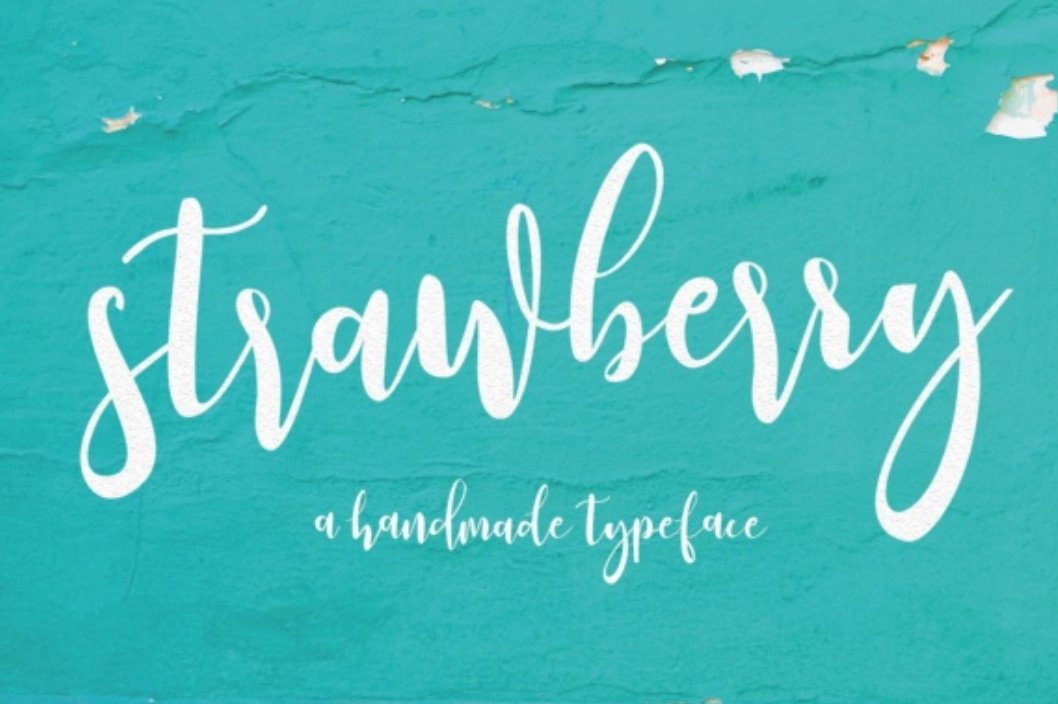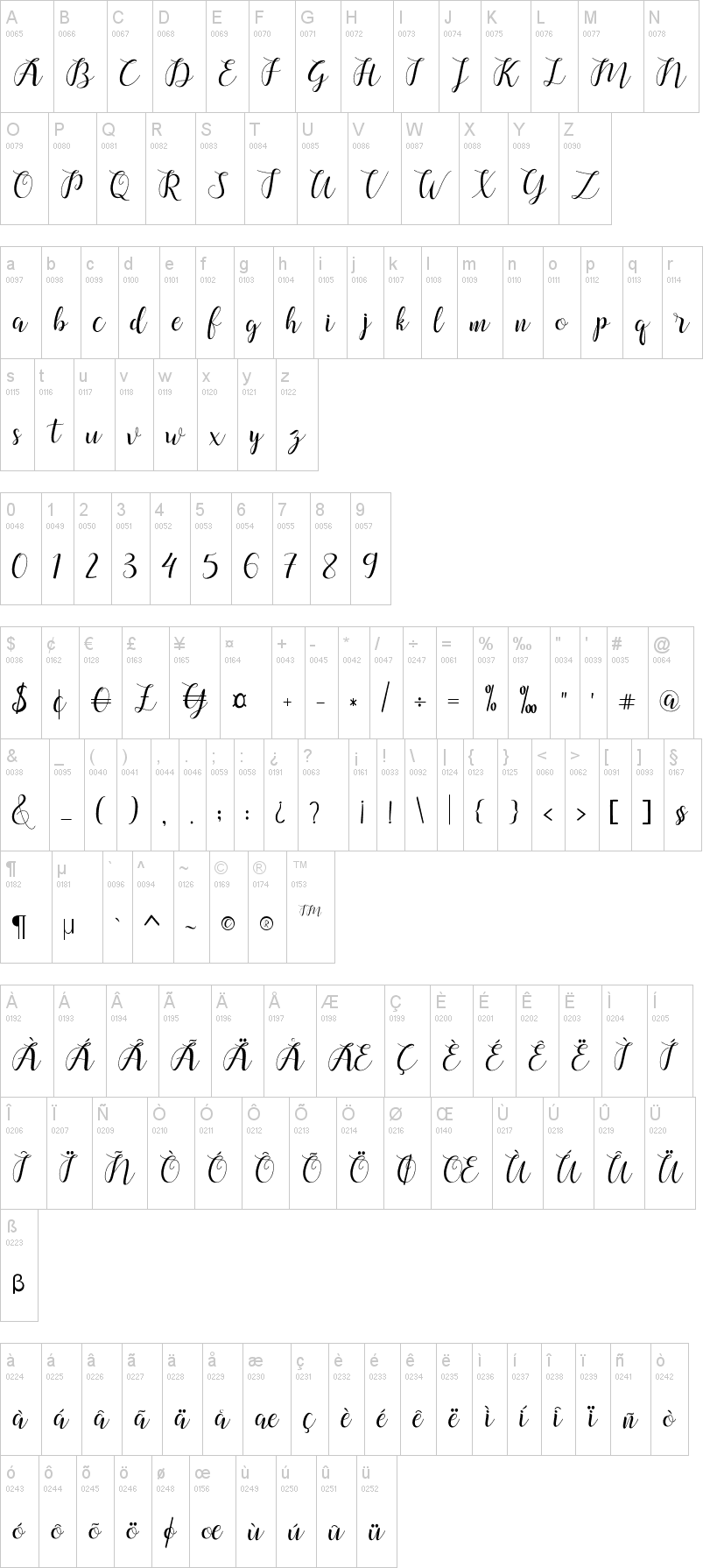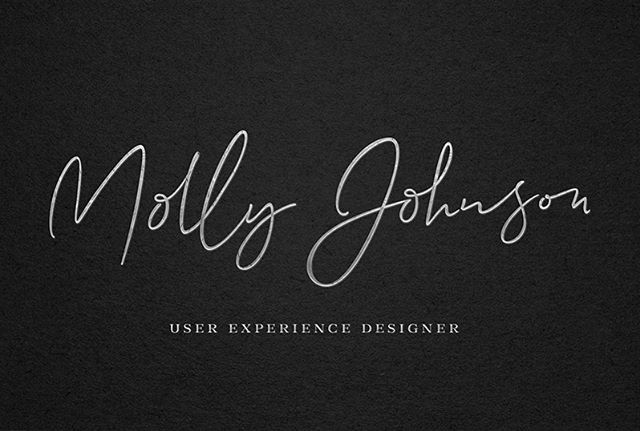
Free and Premium Quality Fonts - Best Premium FontsFont generator will convert your text letters using calligraphy fontclick a copy buttonpaste it as plain text. Steve jobs attended the calligraphy class at reed college oregon and got inspired by it so much that he decided to include many fonts in the mac computers. Fonts for twitter is an online twitter font generator tool here you can copy and paste generated fonts for twitter and use in your twitter account and twitter bio.
calligraphy font generator for twitter
Our font for twitter generate calligraphy fonts fancy fonts with cool font styles to enhance twitter profile and twitter bio and our fonts for twitter have a variety of styles.
Calligraphy font generator for twitter. From penning down letters to writing invitations or artistic texts the calligraphy text generator has it all covered for you giving your text a unique and vintage yet formal vibe. You can customize your experience with live font previews. If you dont want the hassle of downloading and installing fonts but just want to use calligraphy fonts fonts online you should check our text generator tool below. The calligraphy text generator basically lessens your work substantially and you can still achieve the same result thanks to this amazing calligraphy fonts generator.
Visit twitter text generator on wonhowto prepare text on twitter normally you only have 140 characters. Declaration of independence of usa was printed in the font caslon which was a very popular british font. There are a huge variety of fonts that you can use on twitter these are only the beginning of what unicode grants us. For that reason you dont need to download wonhowto fonts but just compose the text and copy and paste into your tweet.
Simply type your normal tweet text in the first box and the generator will convert it into a bunch of different fonts which you can copy and paste into your tweets or in your twitter bio and just about anywhere else on the. While the twitter font generator was created while keeping twitter and its need for unique fonts and tweets in mind its use is not limited to this particular social media platform only. How to text with calligraphy font letters use the input field above to type in your message. Browse worry free commercial use fonts web fonts and app fonts tagged modern calligraphy at fontspring.
How to change font on twitter. All fonts are categorized and can be saved for quick reference and comparison. The fonts generator can be used to generate letters and texts for any social media platform or several different websites as long as they support unicode. After youve finished writing copy.
Its going to work pretty much anywhere online works almost everywhere its just texttext with special computer letters and symbols kind of like emoji. Its like youre using fonts awesome twitter.